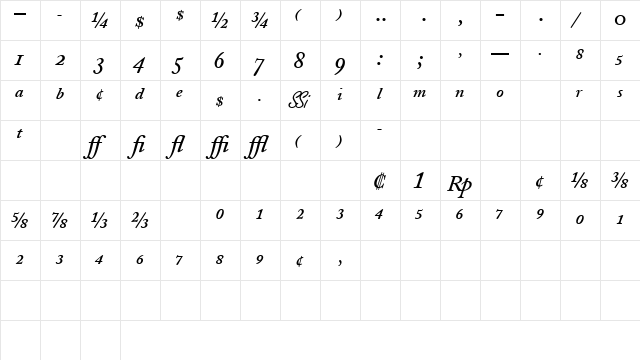
CaslonProSSK SemiBoldItalic
Design Context for CaslonProSSK Typeface
CaslonProSSK offers clean, dependable letterforms without strong stylistic allegiance, making it a practical choice for designers who need flexibility. Its italic angle brings a sense of urgency and motion to the letterforms. Its bold stroke weight gives it real presence on the page.